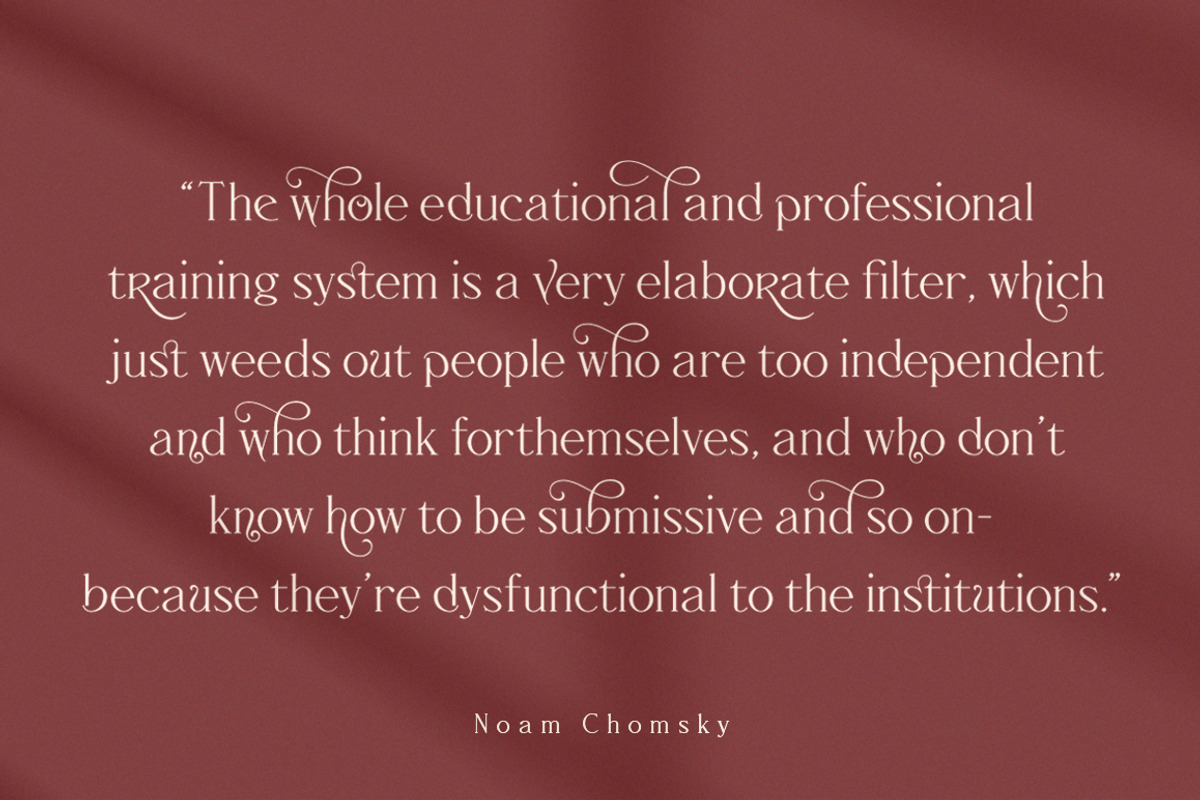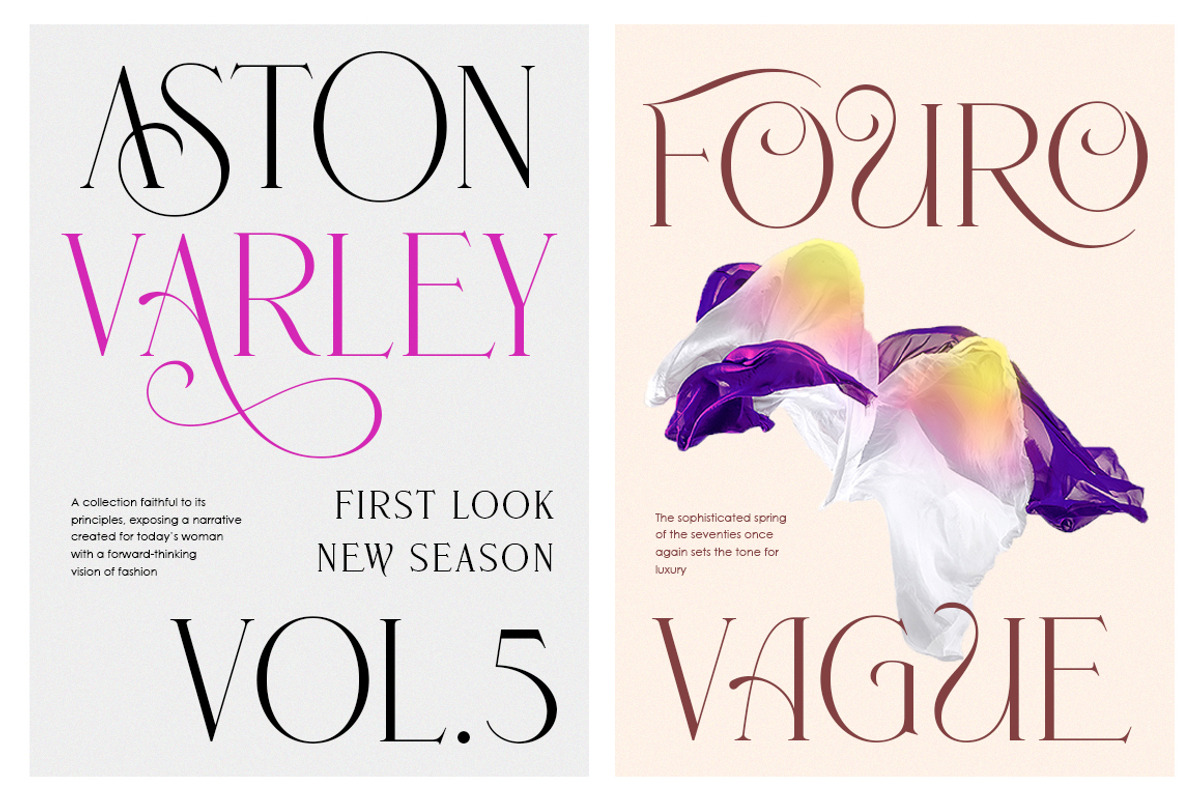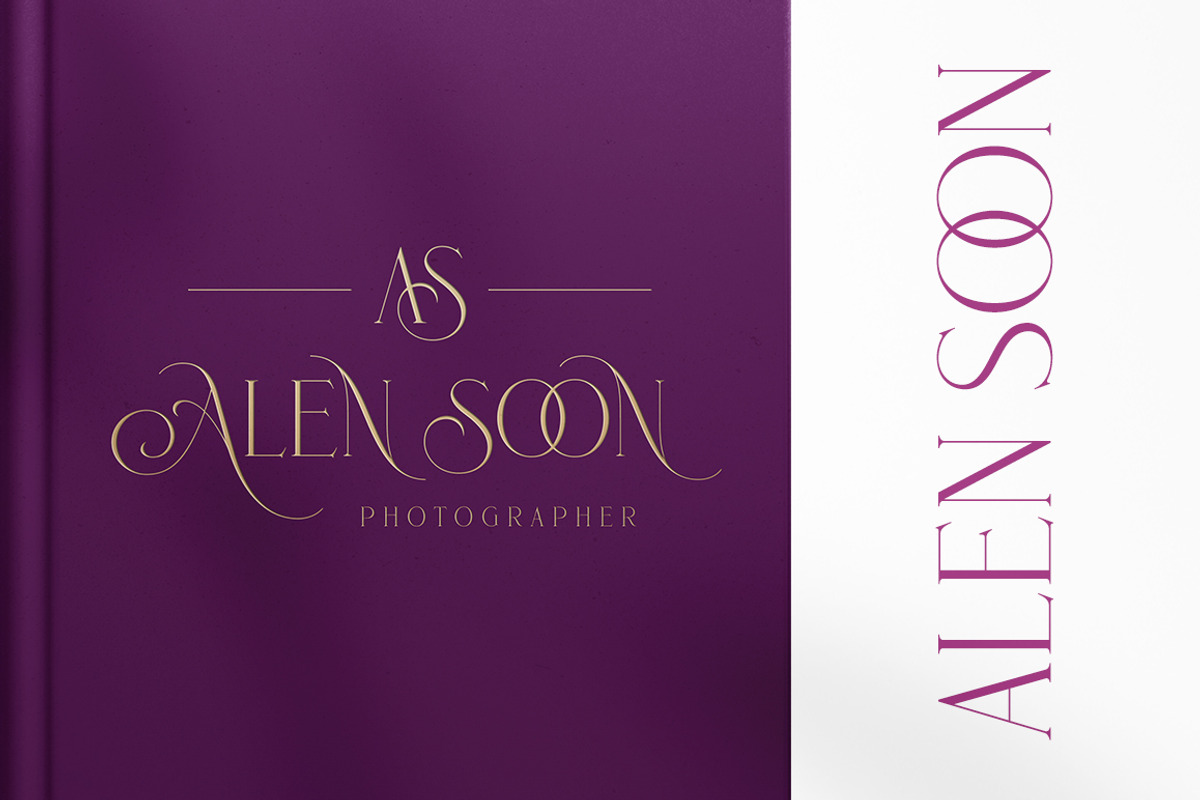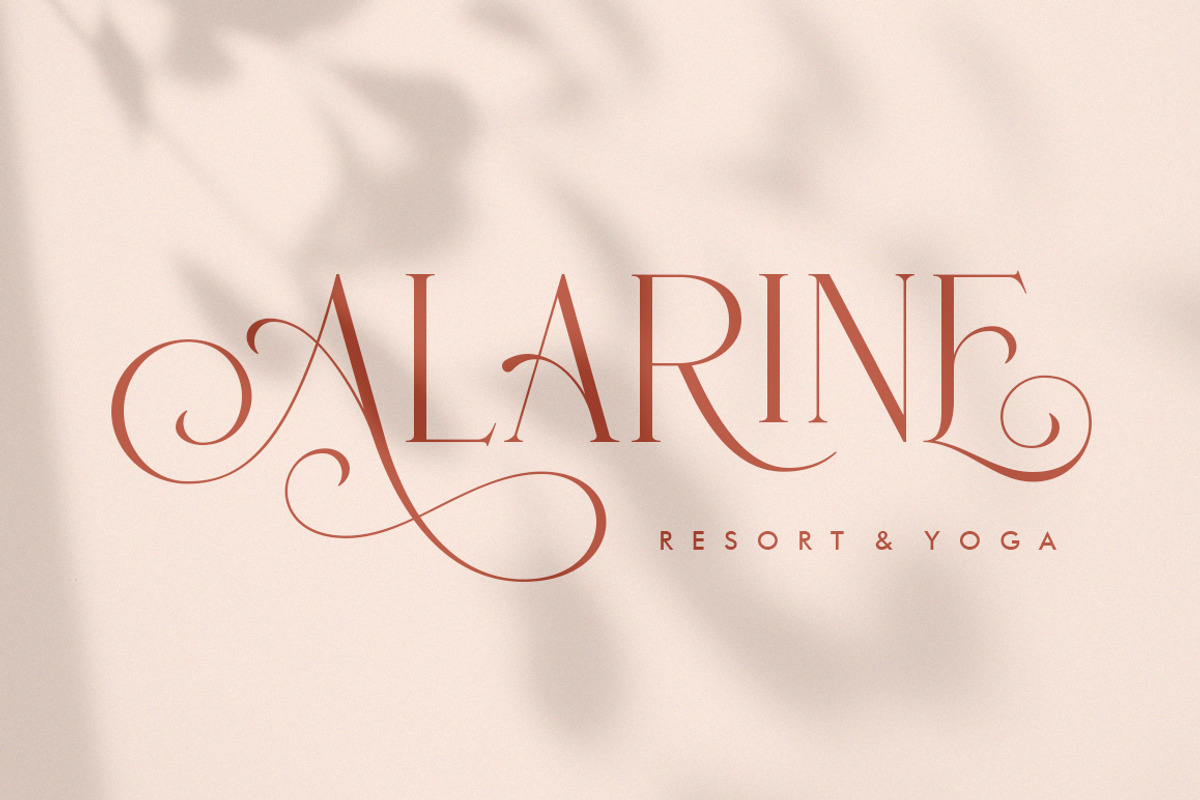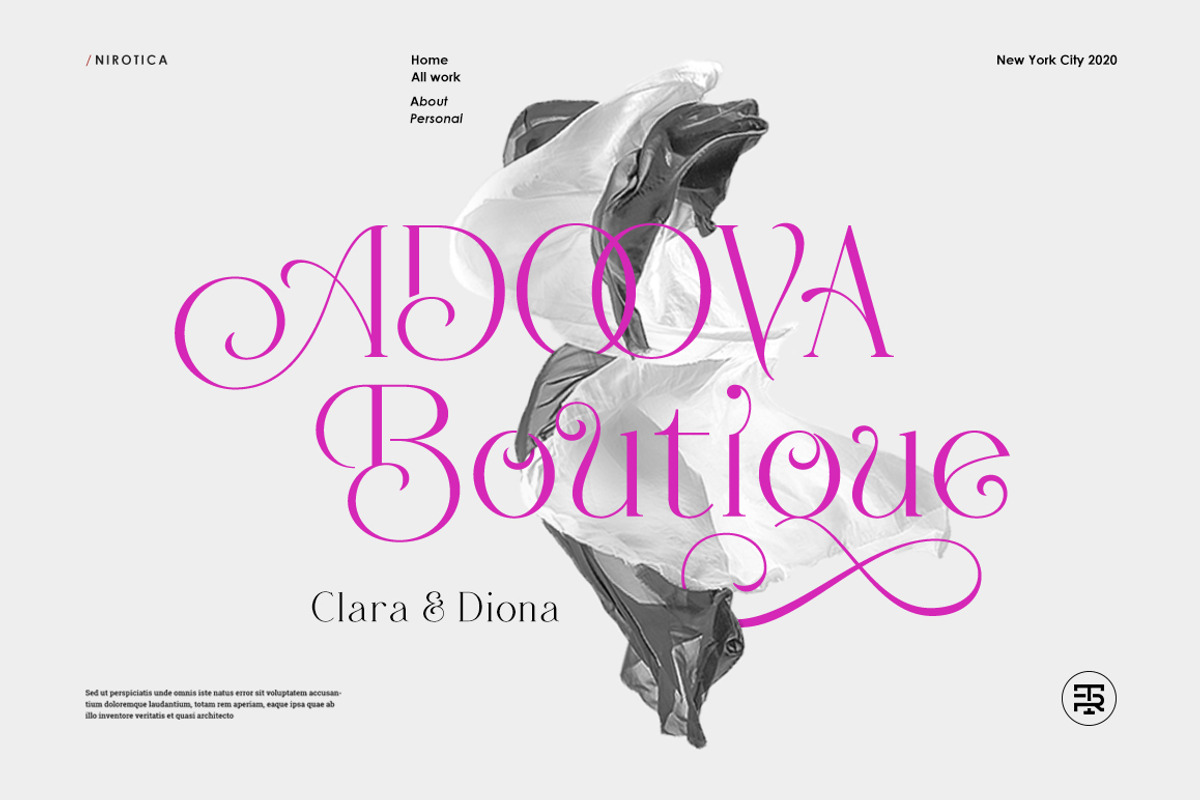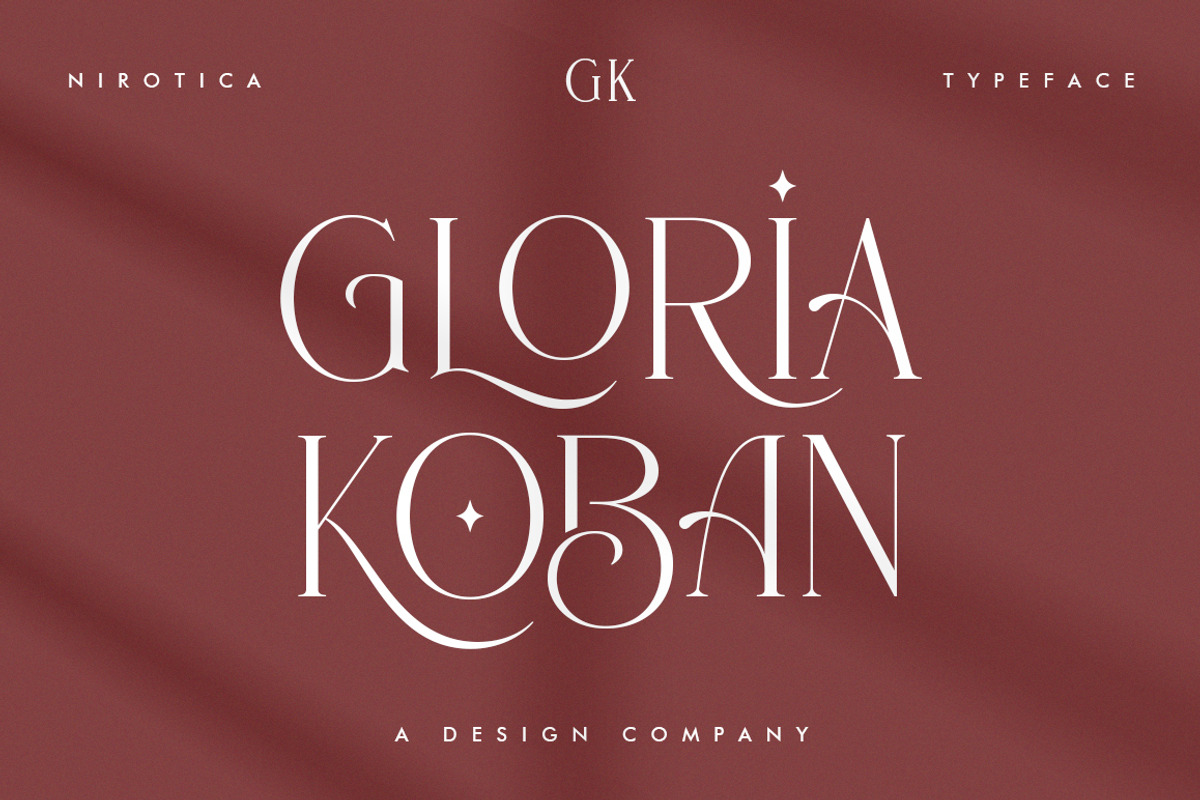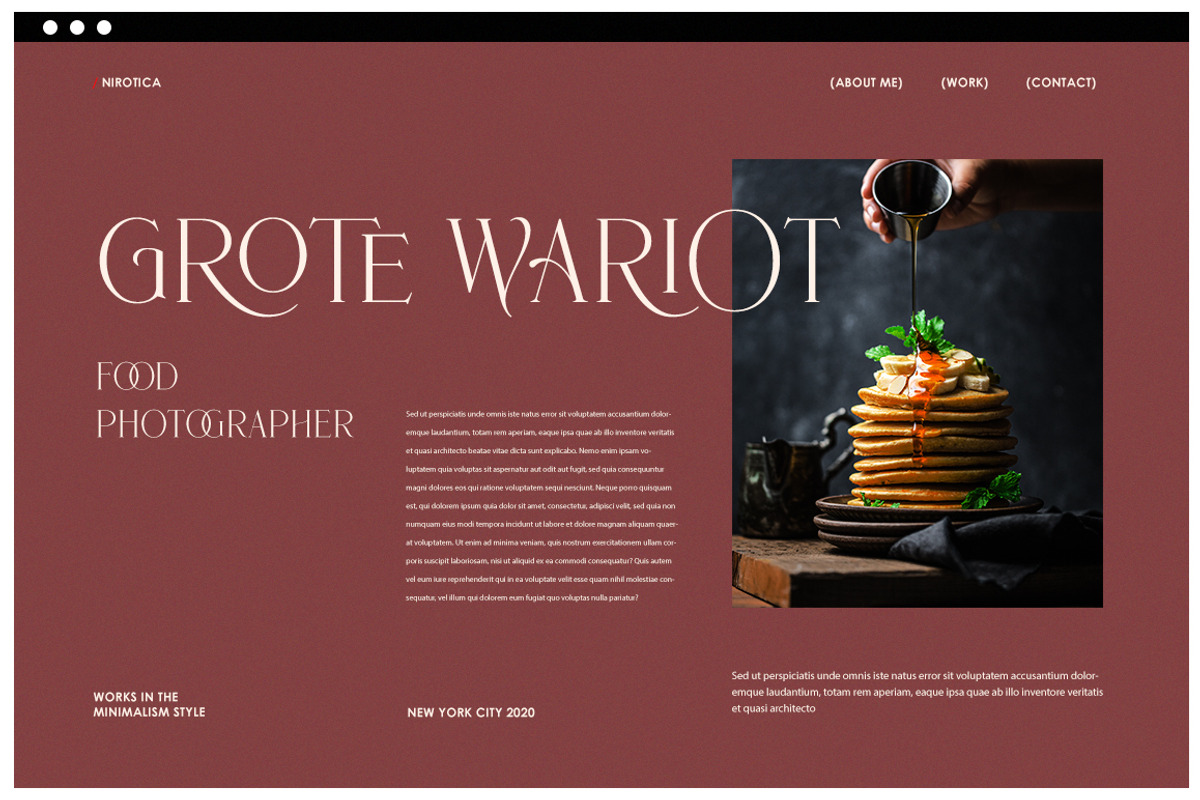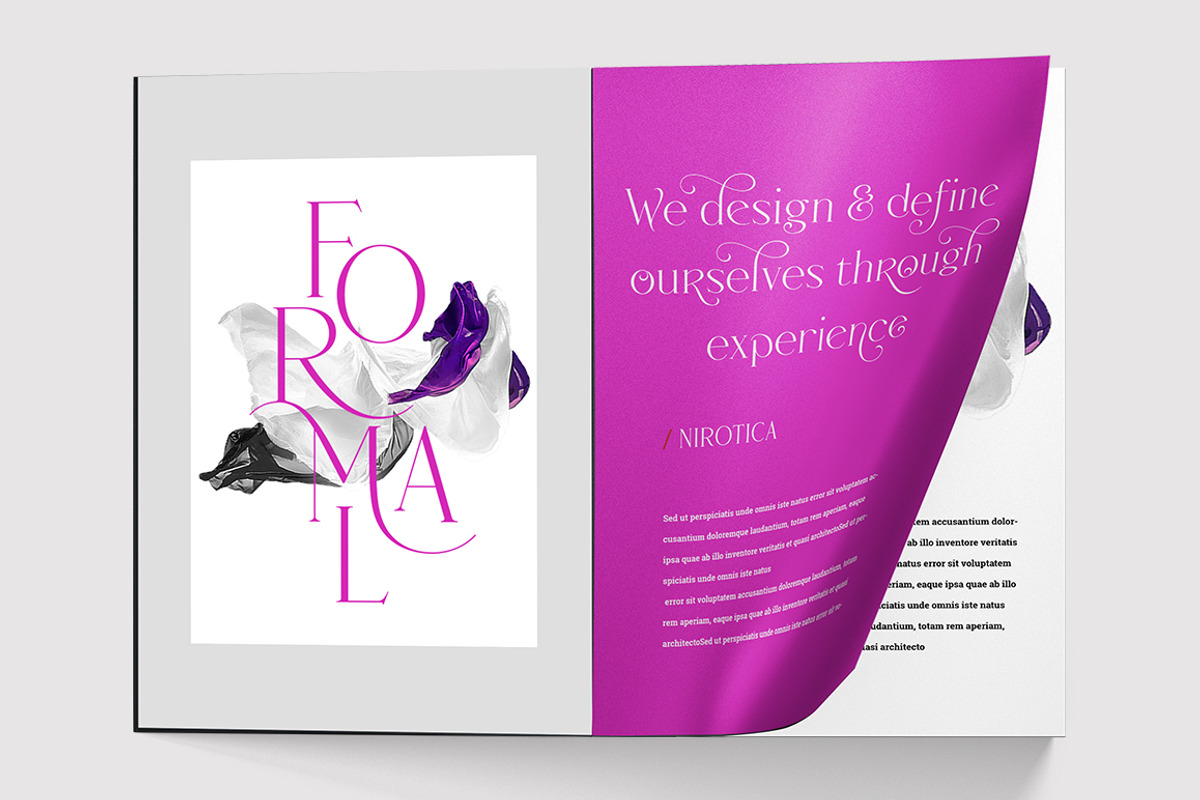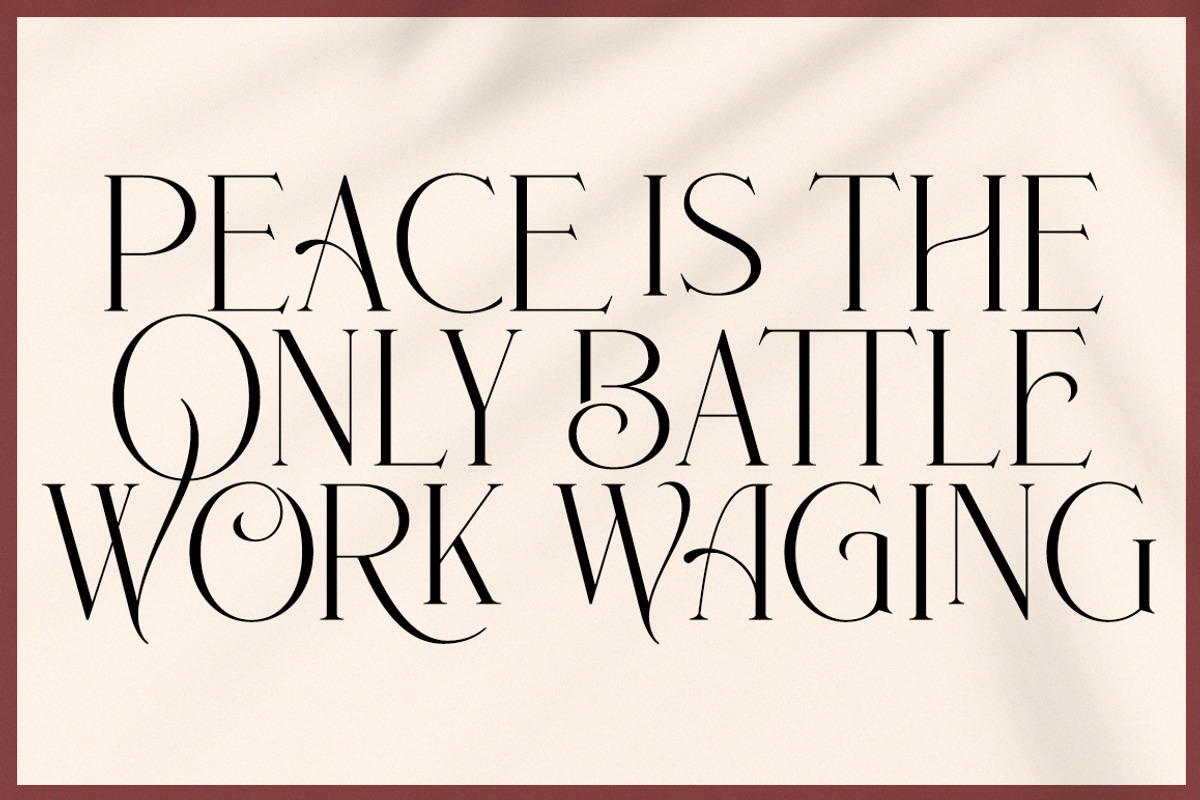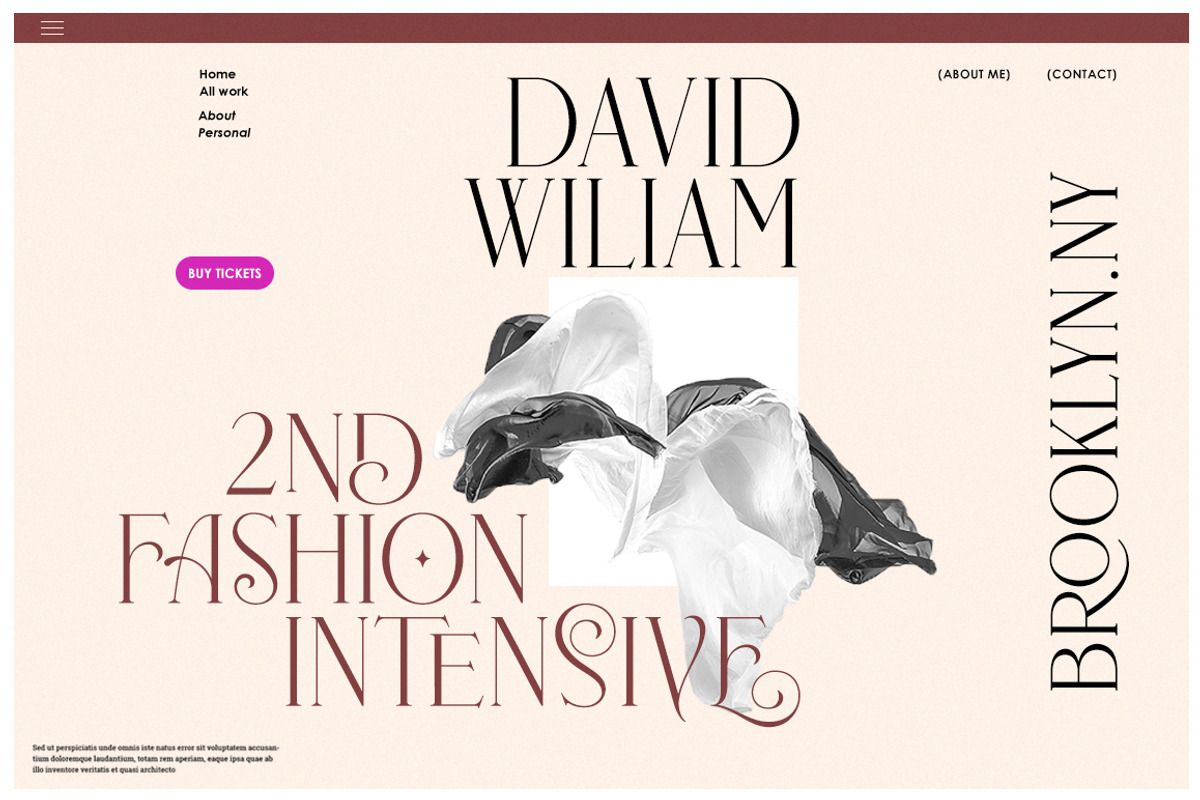
Nirotica
Nirotica is a serif font that comes with very beautiful changing characters that will bring in your projects a touch of luxury and style. The modern style is perfect to be applied in various formal forms such as invitations, labels, restaurant menus, logos, fashion, branding, make up, stationery, novels, magazines, books, greeting / wedding cards, packaging, labels or any type of advertising purpose.
Nirotica has 1129 glyphs and 736 alternative characters, including various language support. With OpenType features with alternative styles and elegant ligatures.